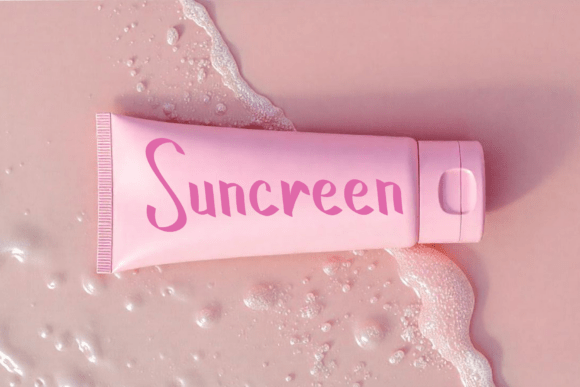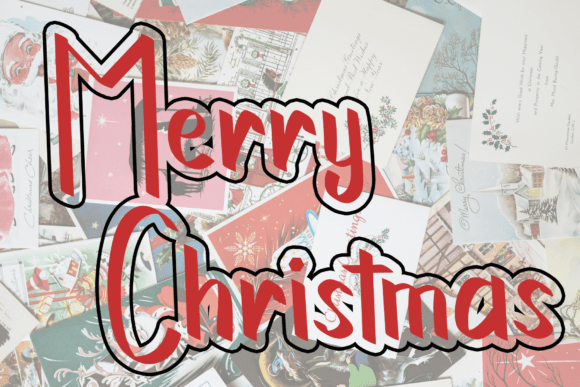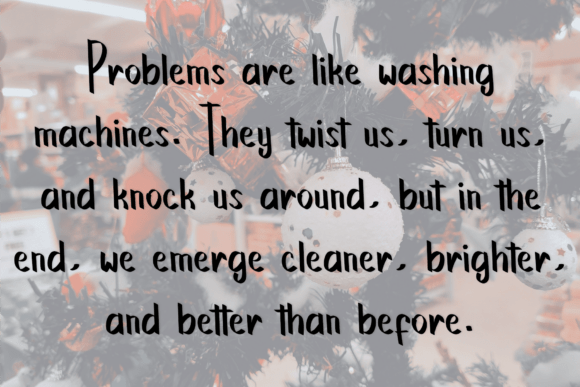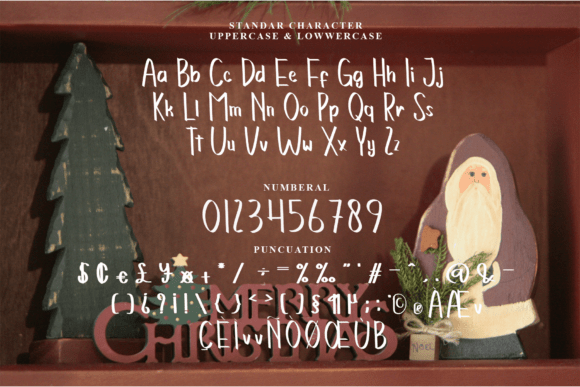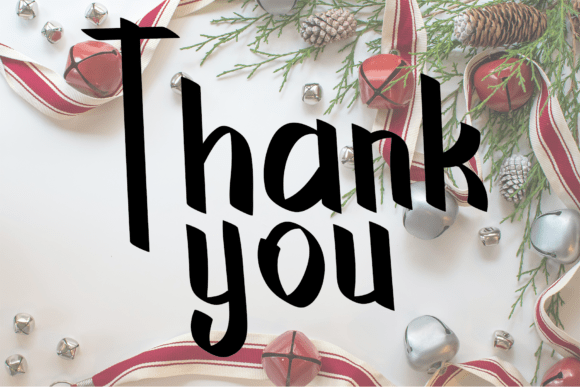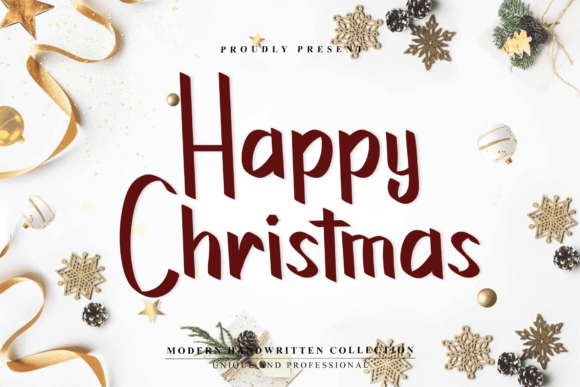
Introducing Happy Christmas Font: The Perfect Handwritten Script for Your Designs
Are you looking for a font that adds a touch of elegance and sweetness to your designs? Look no further than Happy Christmas Font, a beautiful modern handwritten script font that is sure to capture the hearts of designers and crafters alike. With its slender, flowing lines and adorable small loops and ligatures, Happy Christmas Font offers a subtle, sweet, and authentic handwritten feel that is effortlessly chic and feminine.
What Makes Happy Christmas Font So Special?
Happy Christmas Font is a unique and professional typeface that is perfect for delicate branding, pet-themed merchandise, personalized stationery, lifestyle blogs, and any design that requires a gentle, graceful, and appealingly sweet touch. Its slender lines and flowing curves give it a light and airy feel, making it perfect for designs that need a touch of whimsy and playfulness.
One of the standout features of Happy Christmas Font is its adorable small loops and ligatures. These tiny details add a level of sophistication and elegance to the font, making it perfect for designs that require a high level of refinement. Whether you’re creating a logo, a greeting card, or a social media post, Happy Christmas Font is sure to add a touch of magic to your design.
The Benefits of Using Happy Christmas Font
So why choose Happy Christmas Font for your designs? Here are just a few benefits of using this beautiful font:
• Elegant and Refined: Happy Christmas Font has a sophisticated and elegant feel that is perfect for designs that require a high level of refinement.
• Versatile: This font is perfect for a wide range of designs, from delicate branding to pet-themed merchandise, personalized stationery, and lifestyle blogs.
• Easy to Read: Happy Christmas Font is clear and easy to read, making it perfect for designs that require a high level of legibility.
• Unique: With its adorable small loops and ligatures, Happy Christmas Font is a unique and distinctive font that is sure to stand out from the crowd.
How to Use Happy Christmas Font in Your Designs
Happy Christmas Font is easy to use in a variety of designs. Here are a few ideas to get you started:
• Delicate Branding: Use Happy Christmas Font to create a logo or branding materials that are elegant and refined.
• Pet-Themed Merchandise: This font is perfect for creating adorable pet-themed merchandise, such as pet tags, collars, and toys.
• Personalized Stationery: Use Happy Christmas Font to create beautiful personalized stationery, such as greeting cards, invitations, and thank-you notes.
• Lifestyle Blogs: This font is perfect for creating a beautiful and elegant blog that showcases your lifestyle and interests.
Tips and Tricks for Getting the Most Out of Happy Christmas Font
Here are a few tips and tricks for getting the most out of Happy Christmas Font:
• Experiment with Different Sizes: Happy Christmas Font looks great in a variety of sizes, from large headings to small body text.
• Pair it with Other Fonts: This font pairs well with a variety of other fonts, including sans-serif fonts and serif fonts.
• Use it in Combination with Images: Happy Christmas Font looks great in combination with images, such as photographs and illustrations.
In conclusion, Happy Christmas Font is a beautiful modern handwritten script font that is perfect for designers and crafters who want to add a touch of elegance and sweetness to their designs. With its slender, flowing lines and adorable small loops and ligatures, this font offers a subtle, sweet, and authentic handwritten feel that is effortlessly chic and feminine. Whether you’re creating delicate branding, pet-themed merchandise, personalized stationery, or lifestyle blogs, Happy Christmas Font is sure to be a great choice.